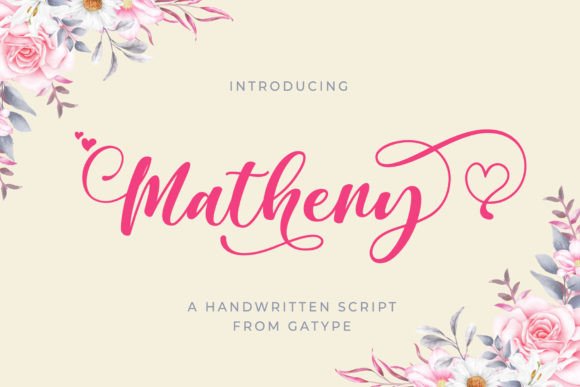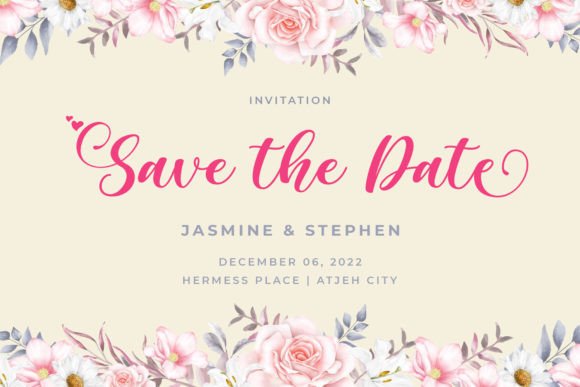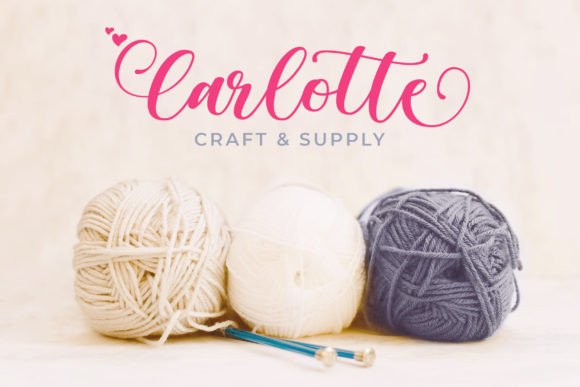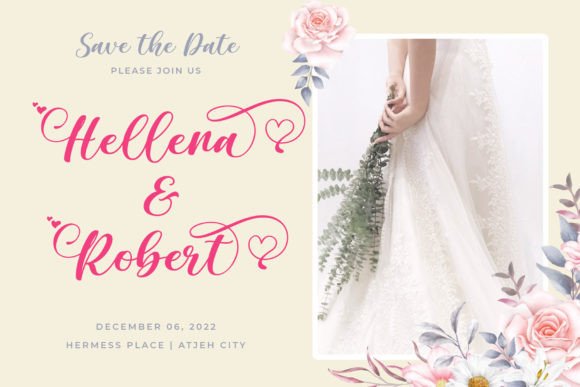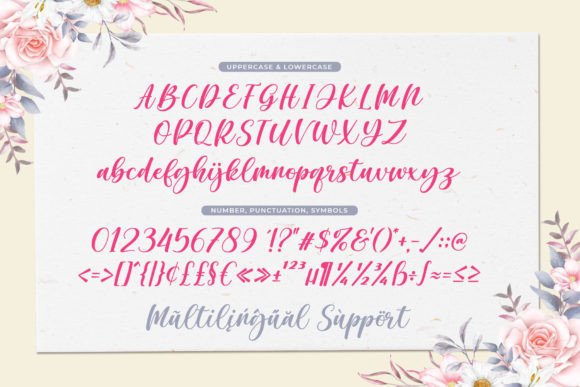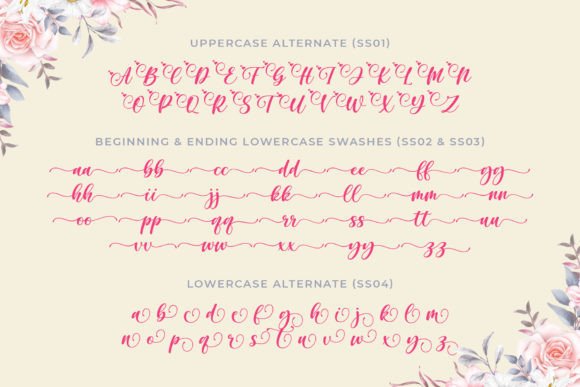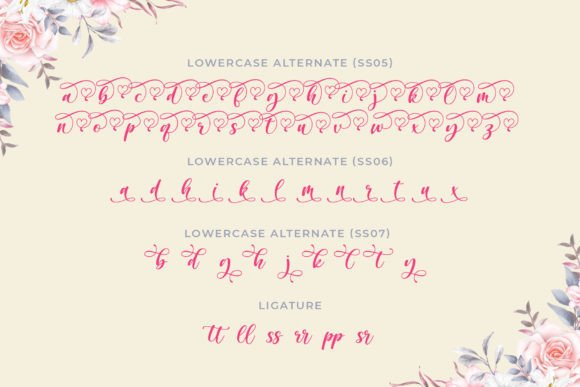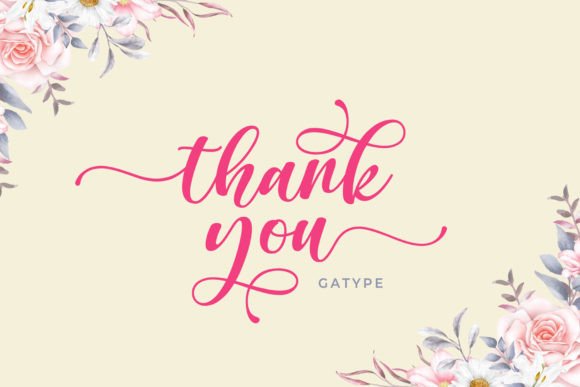
Matheny Font
Add Unique Elegance with Matheny Font
Matheny Font is a beautiful brush signature typeface designed to add a unique and artistic touch to your professional projects. Each letter features a distinct and elegant brush stroke, making your designs feel personal and sophisticated. Whether you are creating posters, banners, logos, book covers, or social media graphics, Matheny Font brings a handcrafted charm that stands out.
Moreover, the font’s flowing script style enhances the beauty of your text, creating an eye-catching and memorable impression.
Versatile Uses for Matheny Font
Matheny Font is perfect for a wide range of design projects, including:
• Posters and banners
• Brand logos and corporate identity
• Book covers and titles
• Print products and merchandise
• Social media graphics and promotional content
• Invitations and event materials
Thanks to its beautiful brush signature style, MathenyFont adds sophistication and personality to all your creative ideas.
It also features balanced kerning and clear spacing to ensure your text remains readable and visually appealing across various sizes and media.
Why Designers Choose Matheny Font
Designers and creatives appreciate MathenyFont for its elegant and unique brush signature style. It adds a personal and professional flair that elevates any project. Whether you are a professional designer or a hobbyist, MathenyFont helps you create beautiful, memorable typography with ease.
Use MathenyFont to bring artistic elegance and individuality to your next creative project.